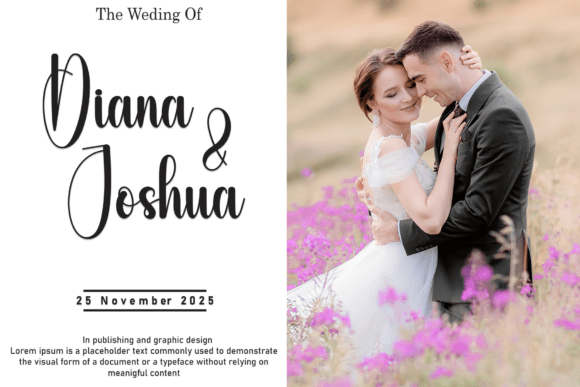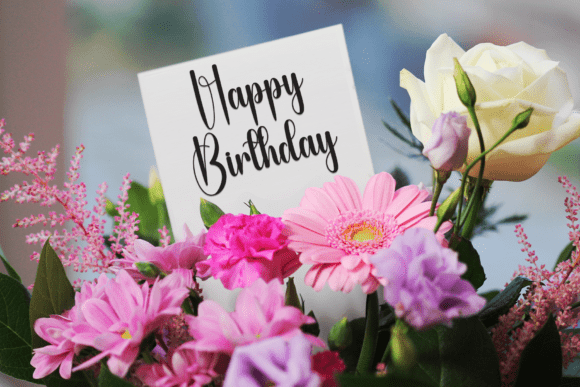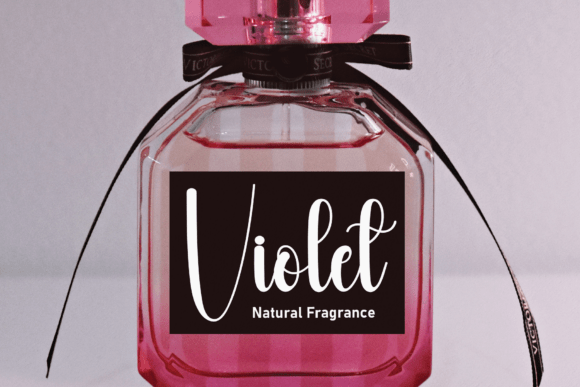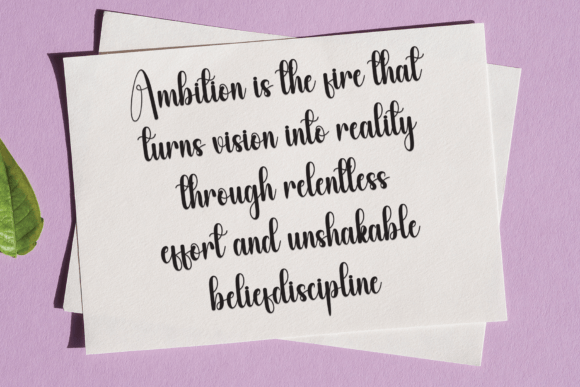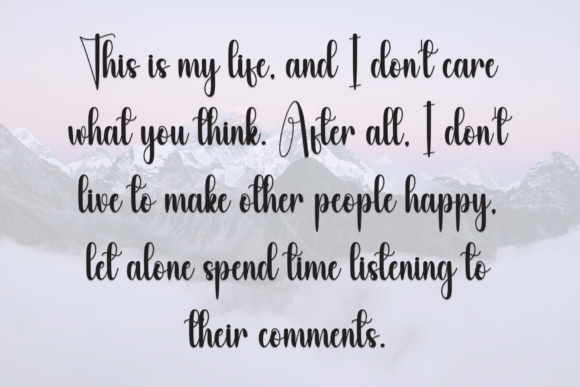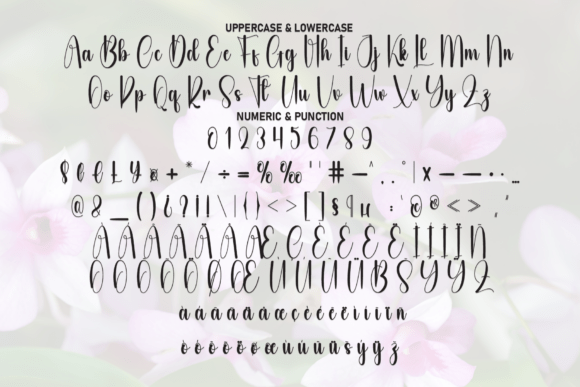
The Power of Gratitude: Elevate Your Designs with this Stylish Handwritten Script Font
I’ll never forget the time I was working on a wedding invitation project, and my client asked for a font that exuded elegance and playfulness. I scoured the internet, tried countless fonts, but nothing seemed quite right. That was until I stumbled upon Gratitude Font. With its flowing curves and natural rhythm, it added a personal, charming touch to the invitation that perfectly captured the couple’s style. In this article, I’ll share my experience with Gratitude Font, its features, and how to make the most of it in your designs.
A Personal Review: What I Love About Gratitude Font
Here’s what makes Gratitude Font a standout in my book:
- ✨ Elegant and playful strokes that add a touch of sophistication to any project
- ✅ Flowing curves and natural rhythm that create a sense of movement and fluidity
- 💫 Perfect for invitations, branding, and social media, where a personal touch can make all the difference
- 🎨 Highly versatile, suitable for a wide range of creative projects
While Gratitude Font is an excellent choice, there are a few things to keep in mind:
- 🤔 Some users may find the font a bit too ornate for very formal or traditional designs
- ⚠️ May not be the best choice for very small text sizes, as some details may get lost
- Experiment with OpenType features, such as ligatures and stylistic alternates, to add more personality to your text
The Story Behind Gratitude Font
Gratitude Font was designed with the intention of capturing the essence of elegance and playfulness in a single font. Inspired by the flowing curves of handwritten scripts, the designer aimed to create a font that would add a personal touch to any project. With its natural rhythm and sophisticated feel, Gratitude Font has become a popular choice among designers and crafters.
| What is Gratitude Font best suited for? | Gratitude Font is perfect for invitations, branding, social media, and any creative project that requires a personal touch. |
| Is Gratitude Font available in different styles or weights? | Currently, Gratitude Font is available in a single style, but the designer may release variations or expansions in the future. |